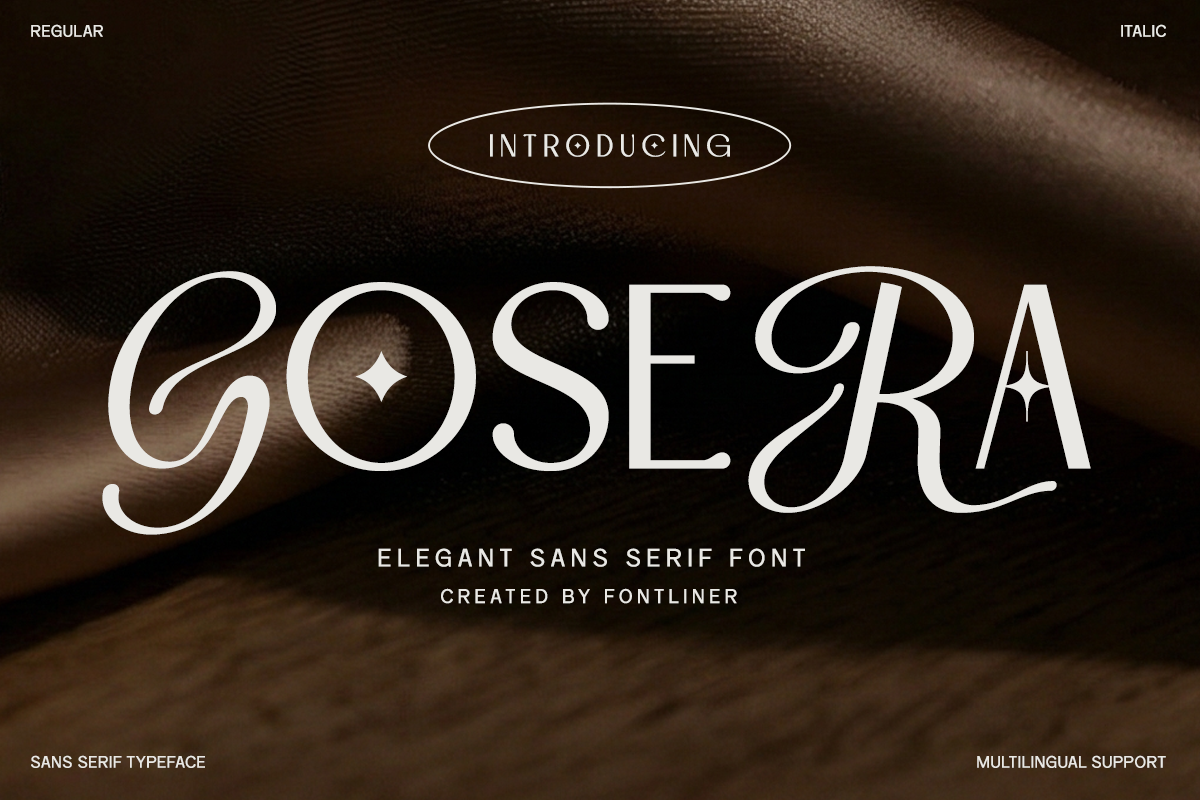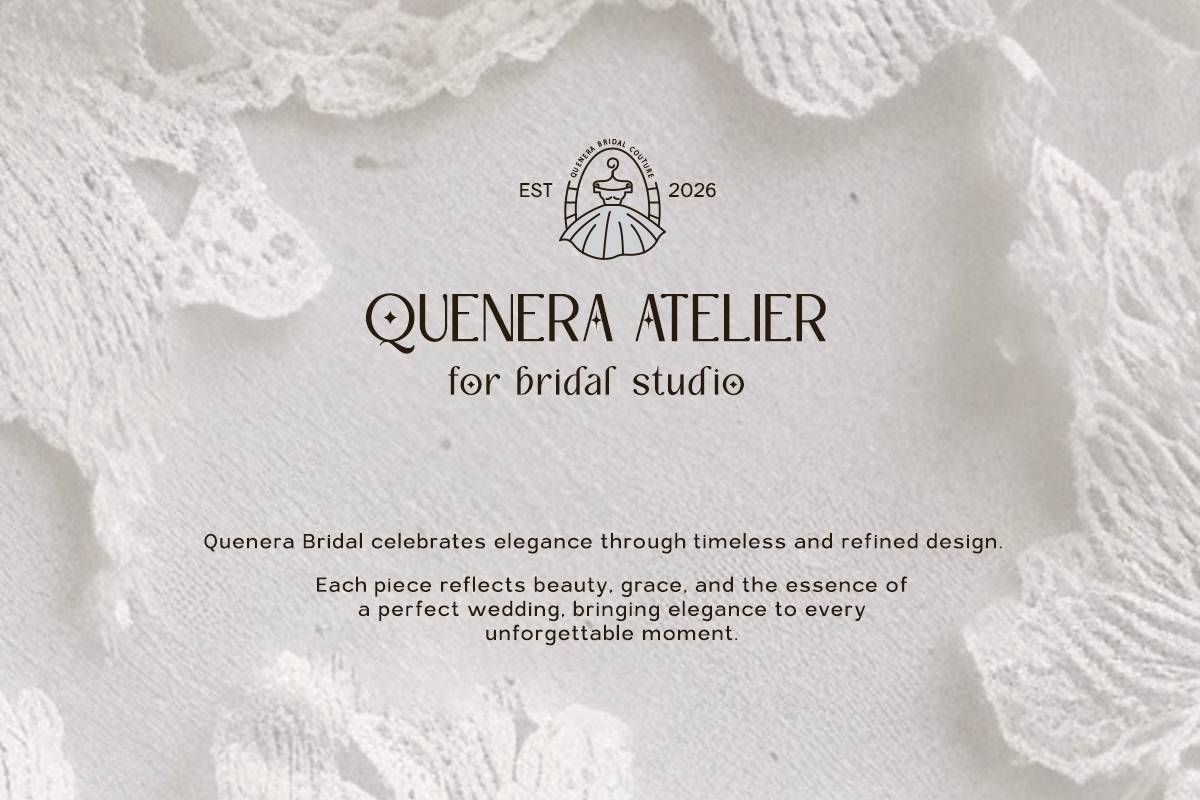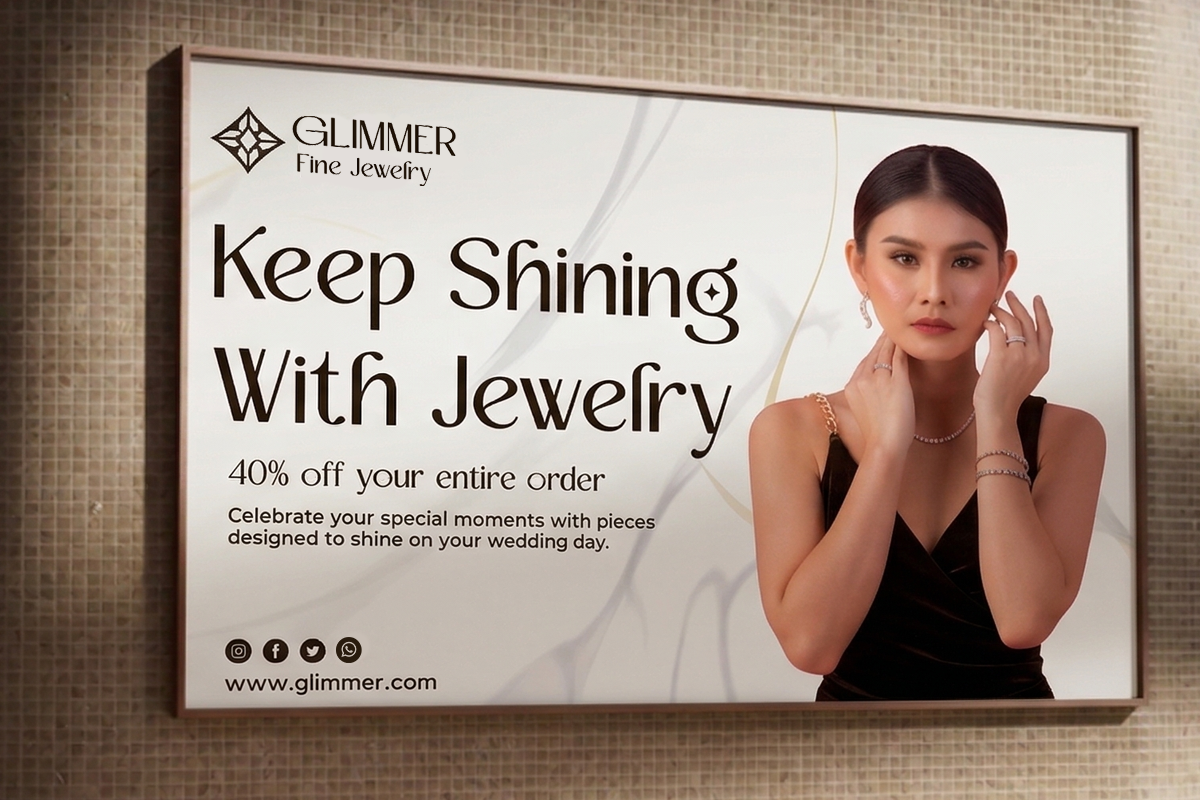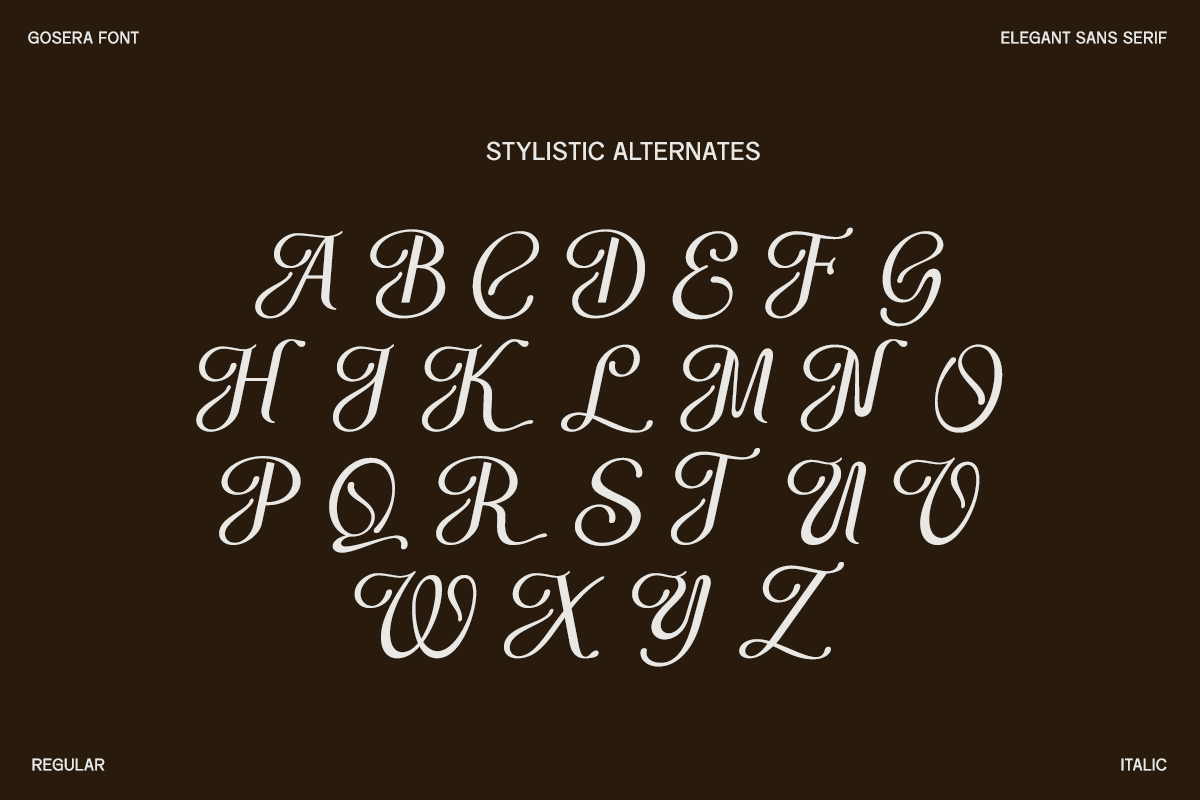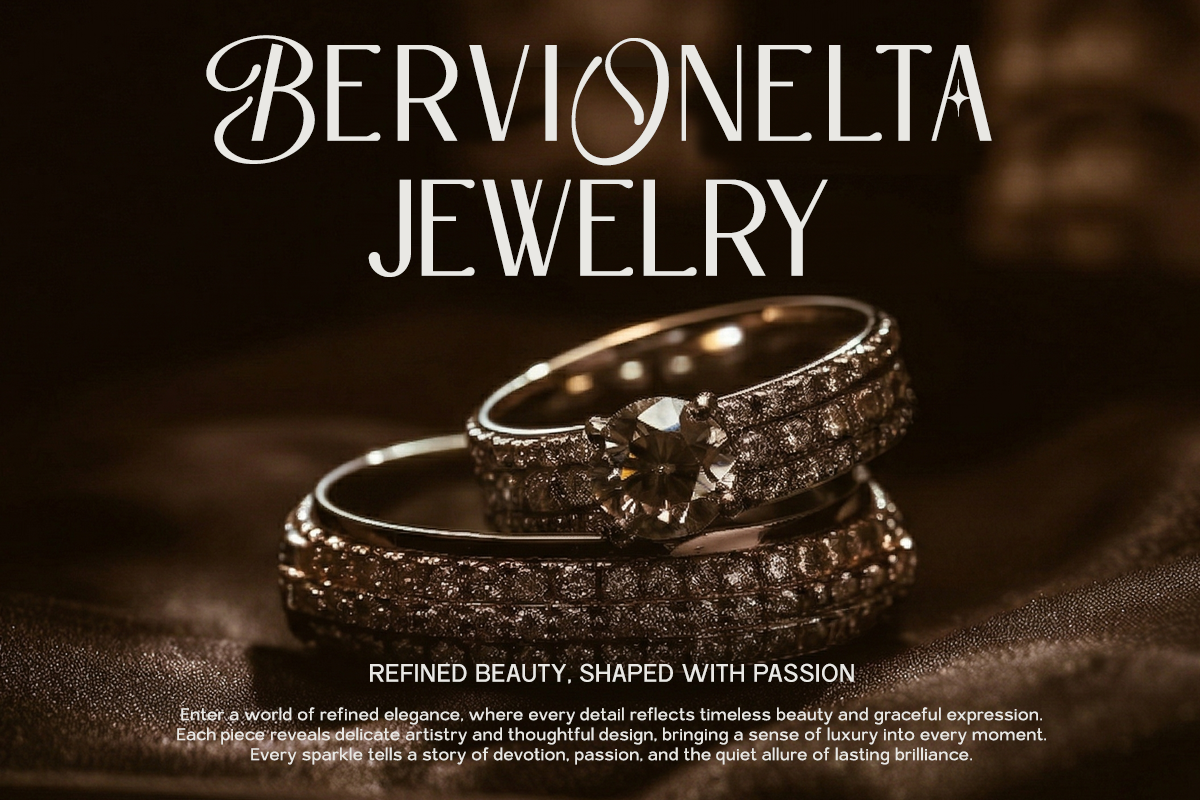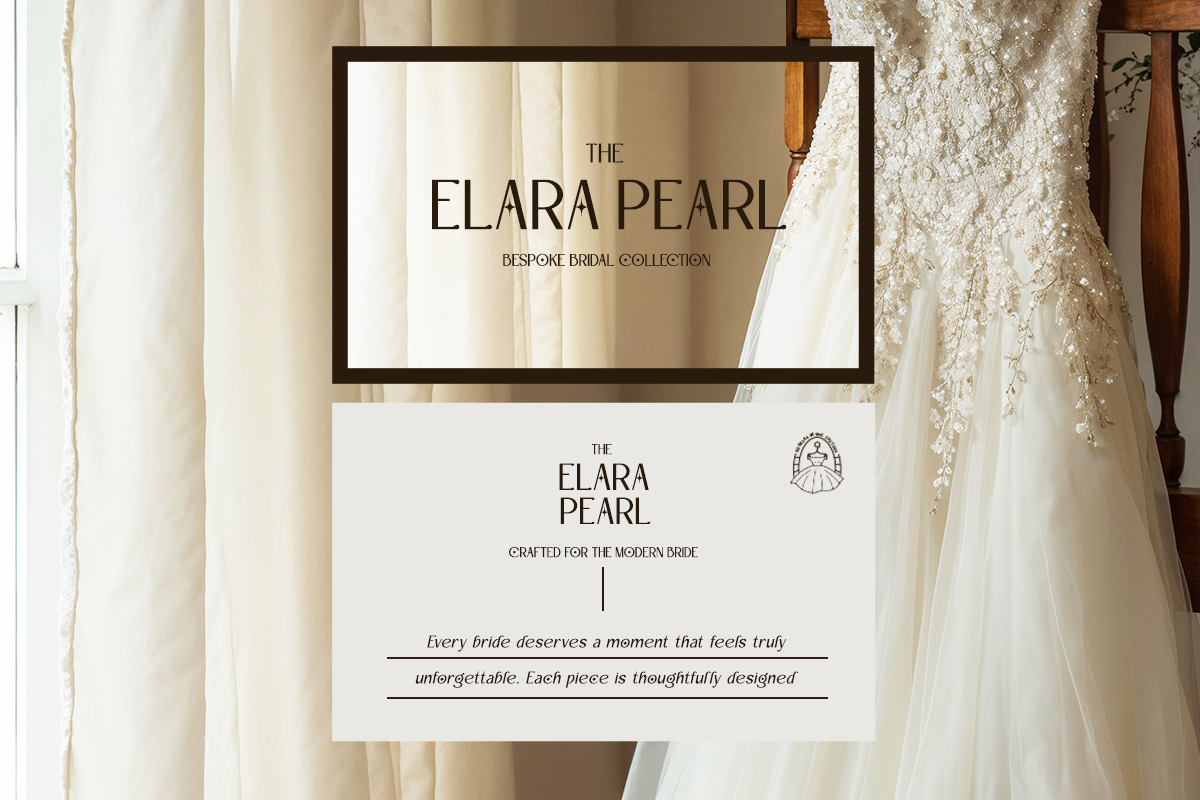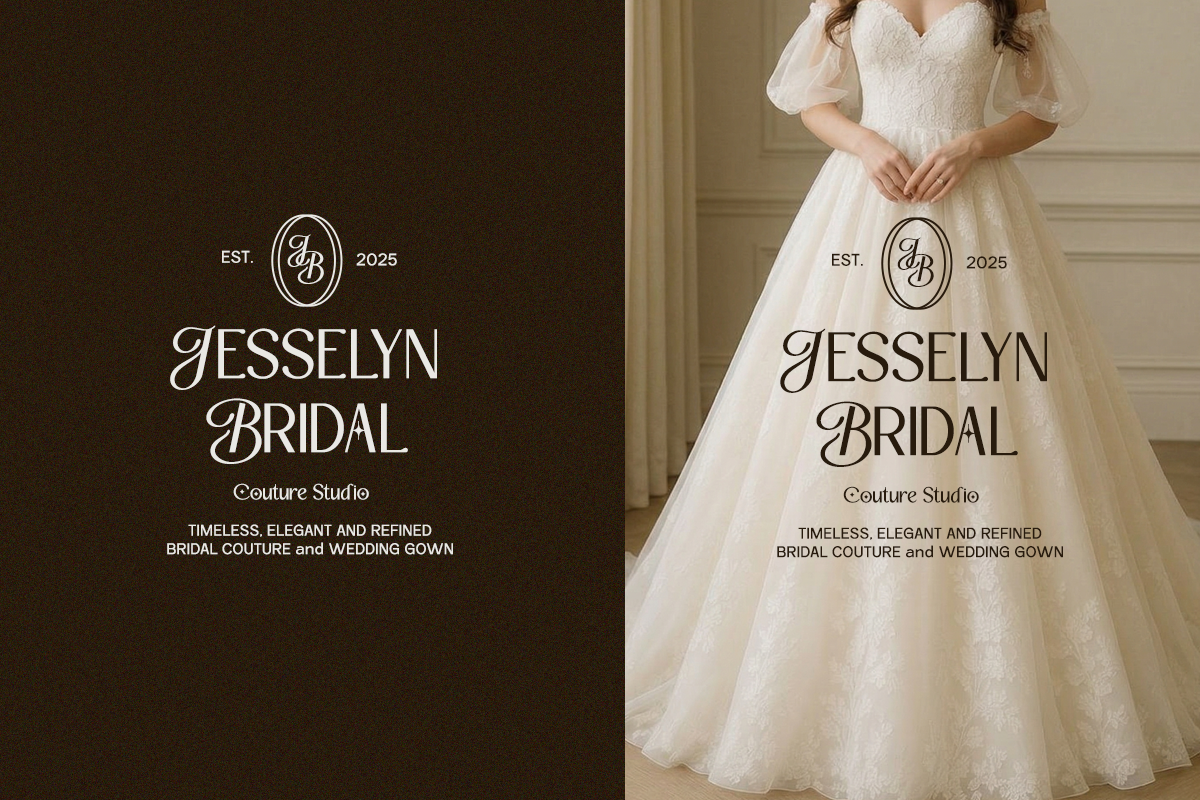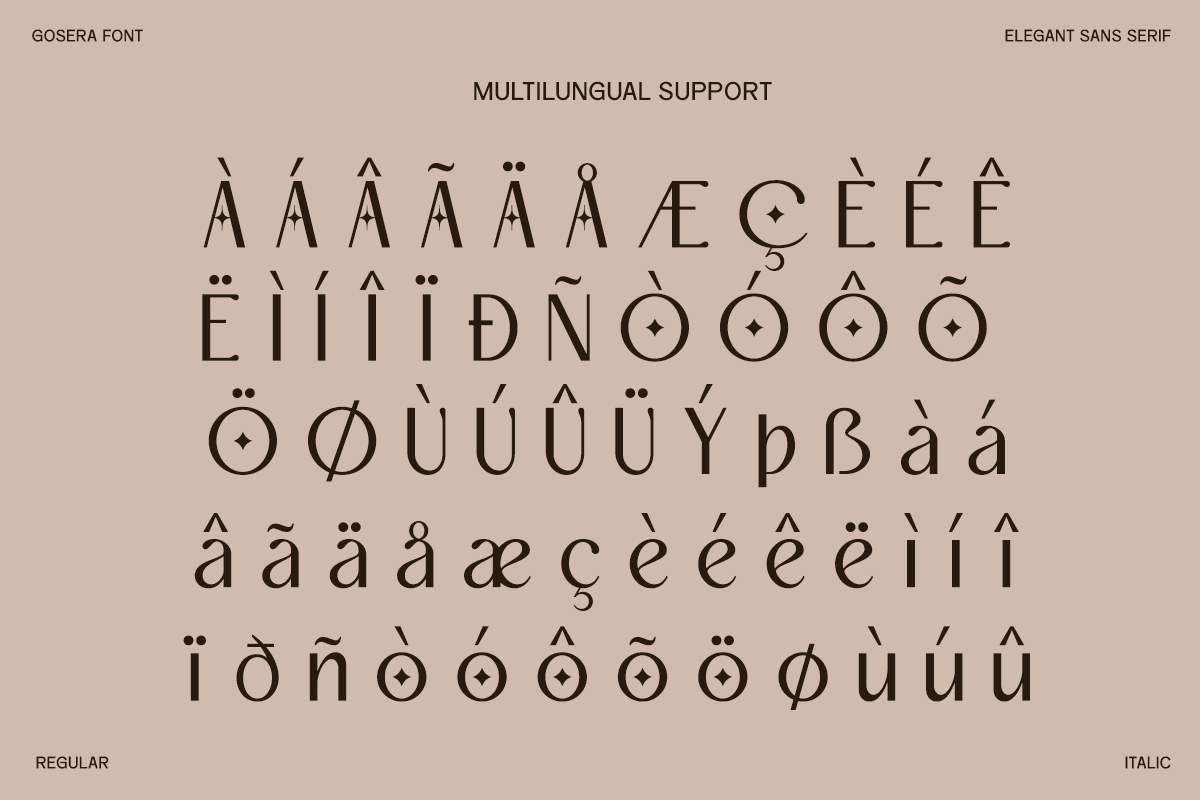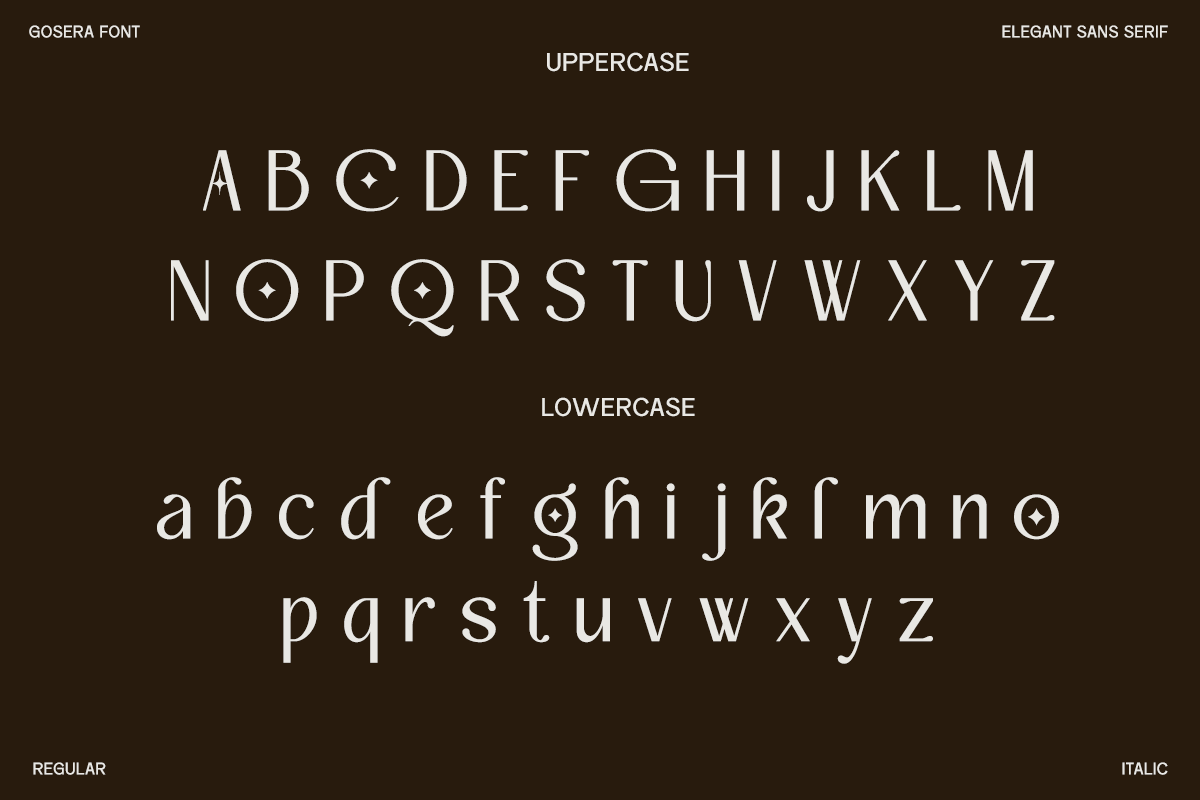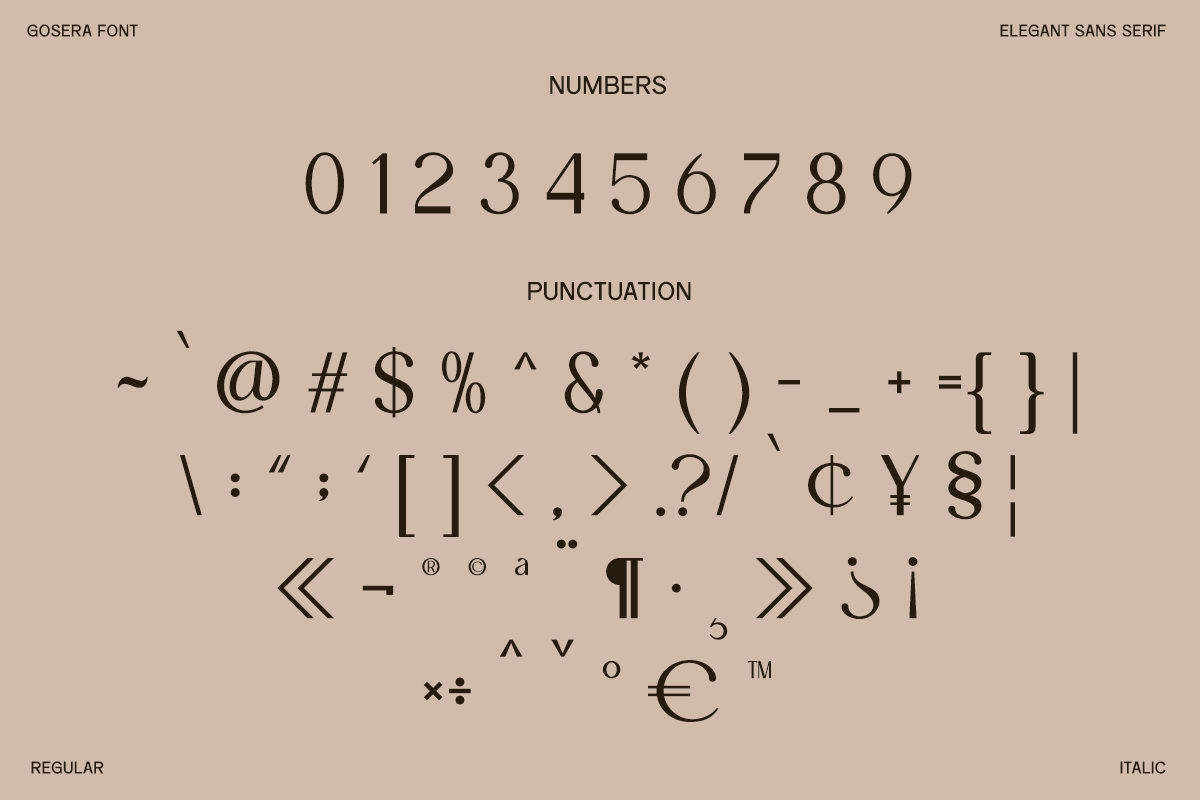
Gosera - Elegant Sans Serif
Gosera is an elegant sans serif font that blends modern minimalism with subtle artistic flair. Designed with smooth curves and refined letterforms, it delivers a clean yet expressive look that feels both contemporary and sophisticated. The unique stylistic touches add personality without sacrificing readability, making it a perfect balance between function and style.
Ideal for branding, logos, fashion visuals, and editorial layouts, Gosera adapts effortlessly across creative projects. Its elegant structure makes it especially suitable for luxury branding and modern identity design, while the italic style enhances visual dynamics and adds a graceful, flowing touch.
With multilingual support and carefully crafted details, Gosera is built for global and professional use. Whether you're designing a sleek brand identity or a stylish headline composition, this typeface brings a polished and premium aesthetic to every project.
- Stylishtic alternates
- Symbol, Number and Multilingual Support